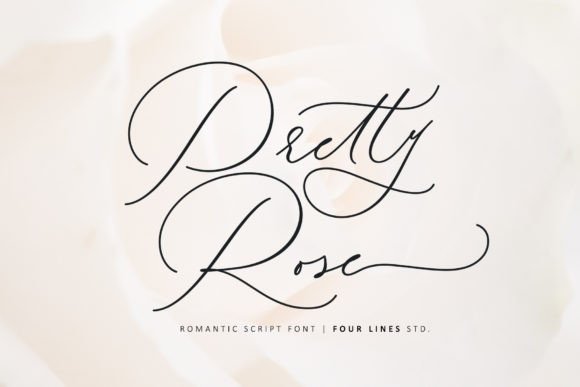
Indulge in the ethereal beauty of the "Pretty Rose" font, a captivating script that will transform your designs into blooming masterpieces. Its delicate strokes, reminiscent of blossoming petals, dance across the page with an enchanting grace.
Imagine your brand adorned with the exquisite charm of "Pretty Rose." It's the perfect choice for flower shops, florists, and anyone seeking to infuse their creations with a touch of floral elegance. Let your words bloom with the allure of this font, capturing hearts and inspiring admiration.
With "Pretty Rose," you're not just downloading a font; you're embracing a world of creative possibilities. Its versatile nature adapts seamlessly to any design concept, from ethereal invitations to enchanting logos. Unleash your imagination and let your designs flourish with the delicate allure of "Pretty Rose." As you craft your visual masterpieces, you'll feel the joy of creating something truly exquisite.